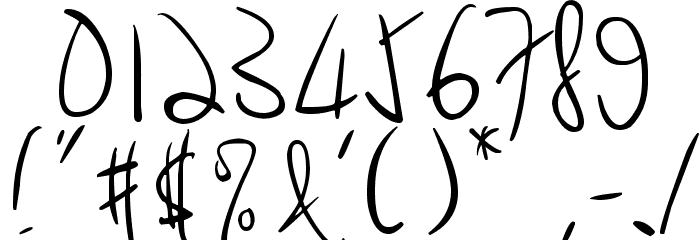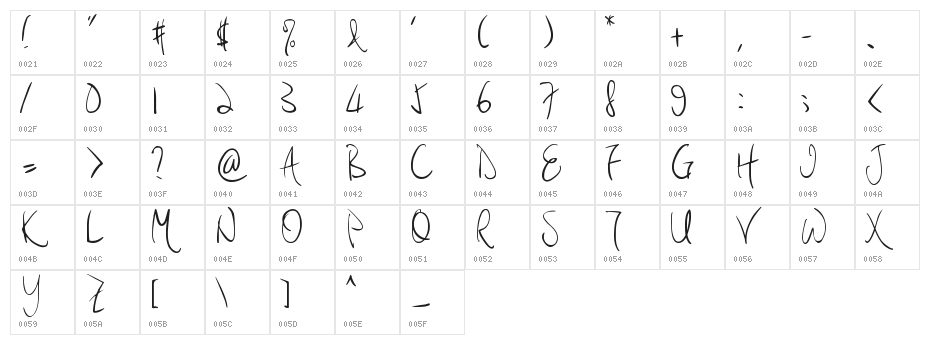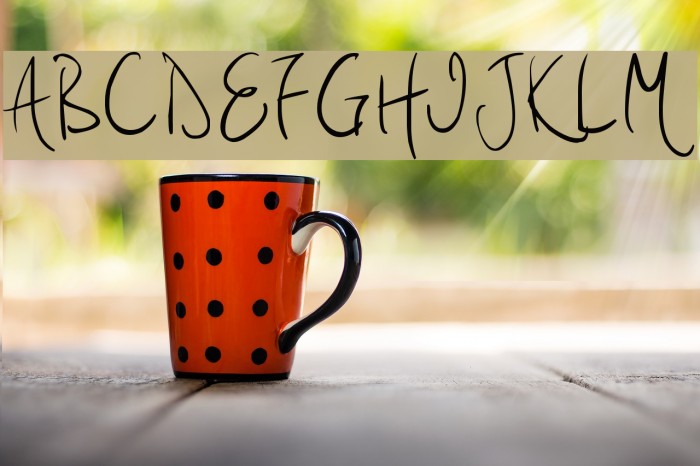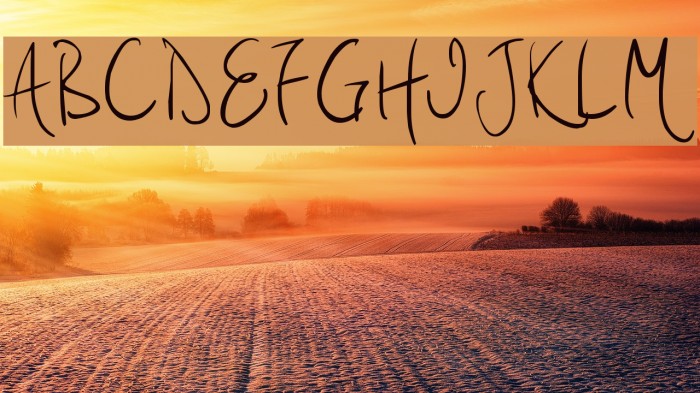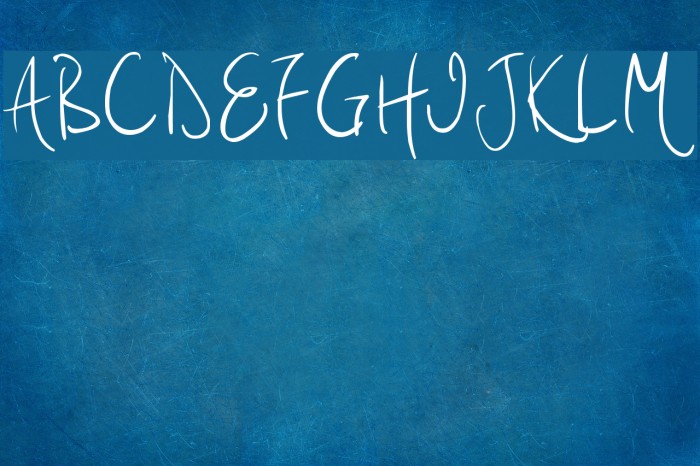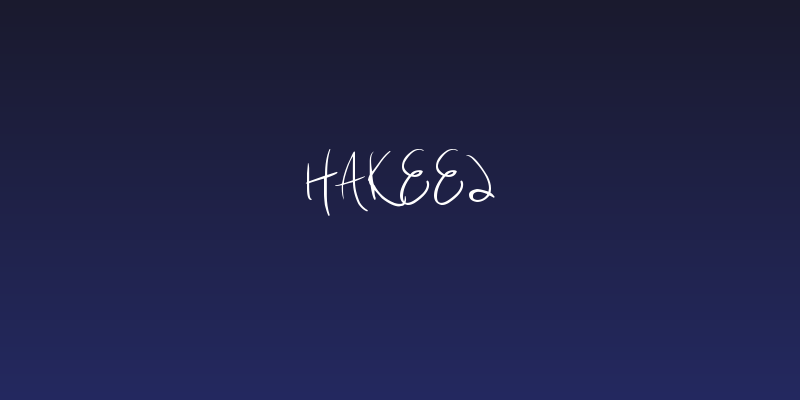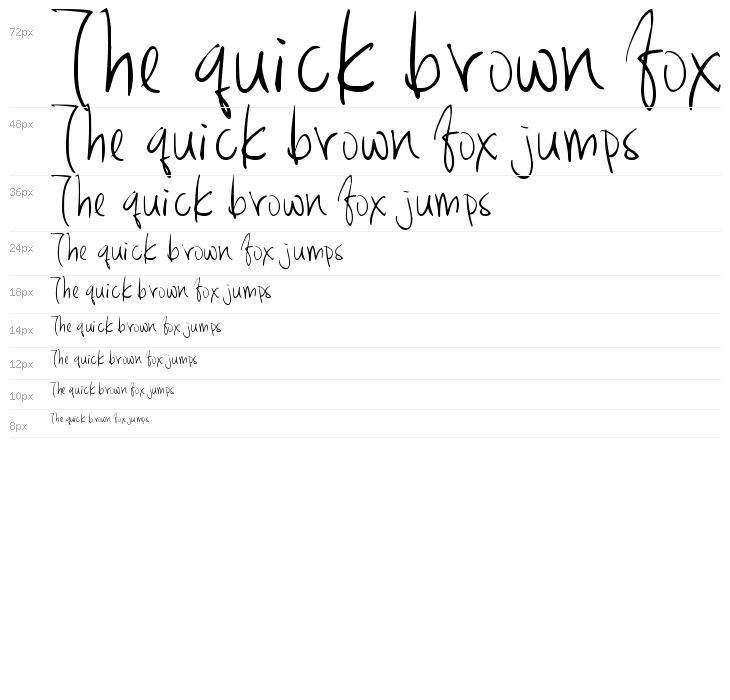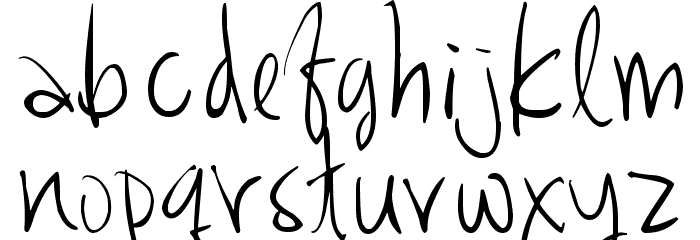
hakee2 Font
hakee2 Description
This font exhibits a lively and dynamic handwritten style, characterized by its fluid and organic strokes. The letters are slightly slanted, giving a sense of movement and spontaneity. Uppercase letters maintain a consistent height, while lowercase letters vary, adding to the casual and informal feel. The numerals and special characters follow the same playful aesthetic, with varying line thickness that adds a touch of whimsy. The overall appearance is approachable and friendly, making it suitable for creative and informal applications.
| Use Case | Headlines, Invitations, Personal Branding |
| Proposed Projects | Ideal for greeting cards, invitations, personal branding, and creative projects that require a personal touch. |